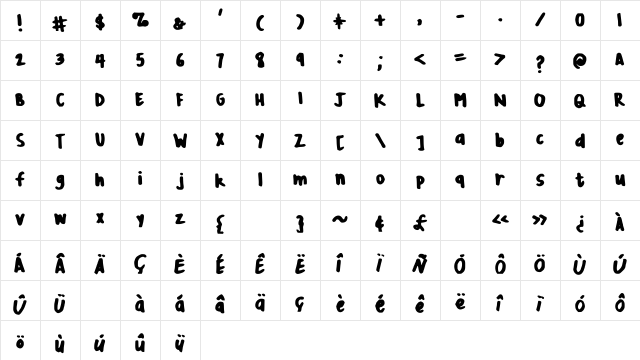
Complete ApollosMum Medium glyph index. Displaying only characters natively supported by ApollosMum Medium font.
ApollosMum is a composed and adaptable typeface that performs quietly and consistently across a wide range of design contexts.